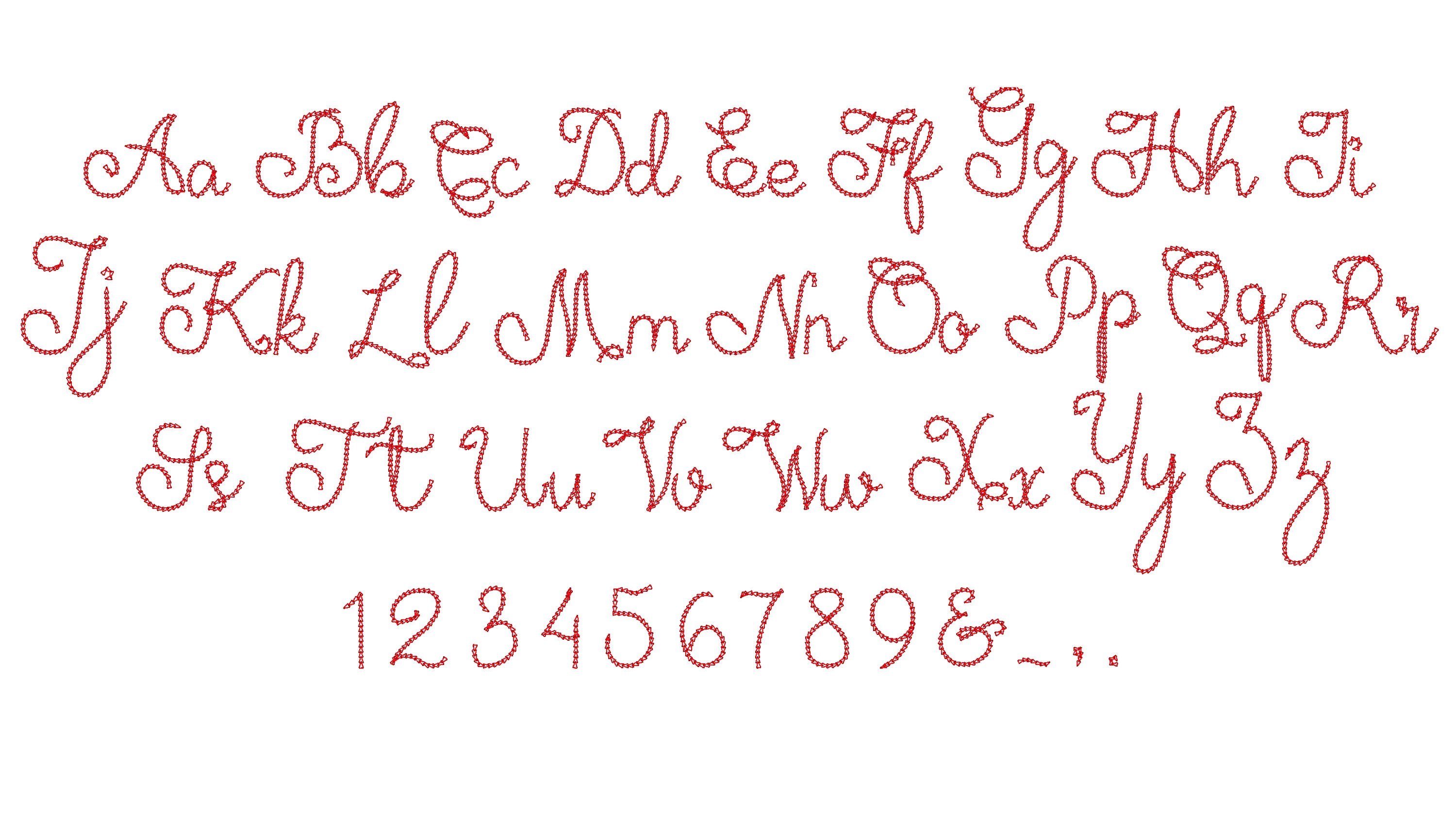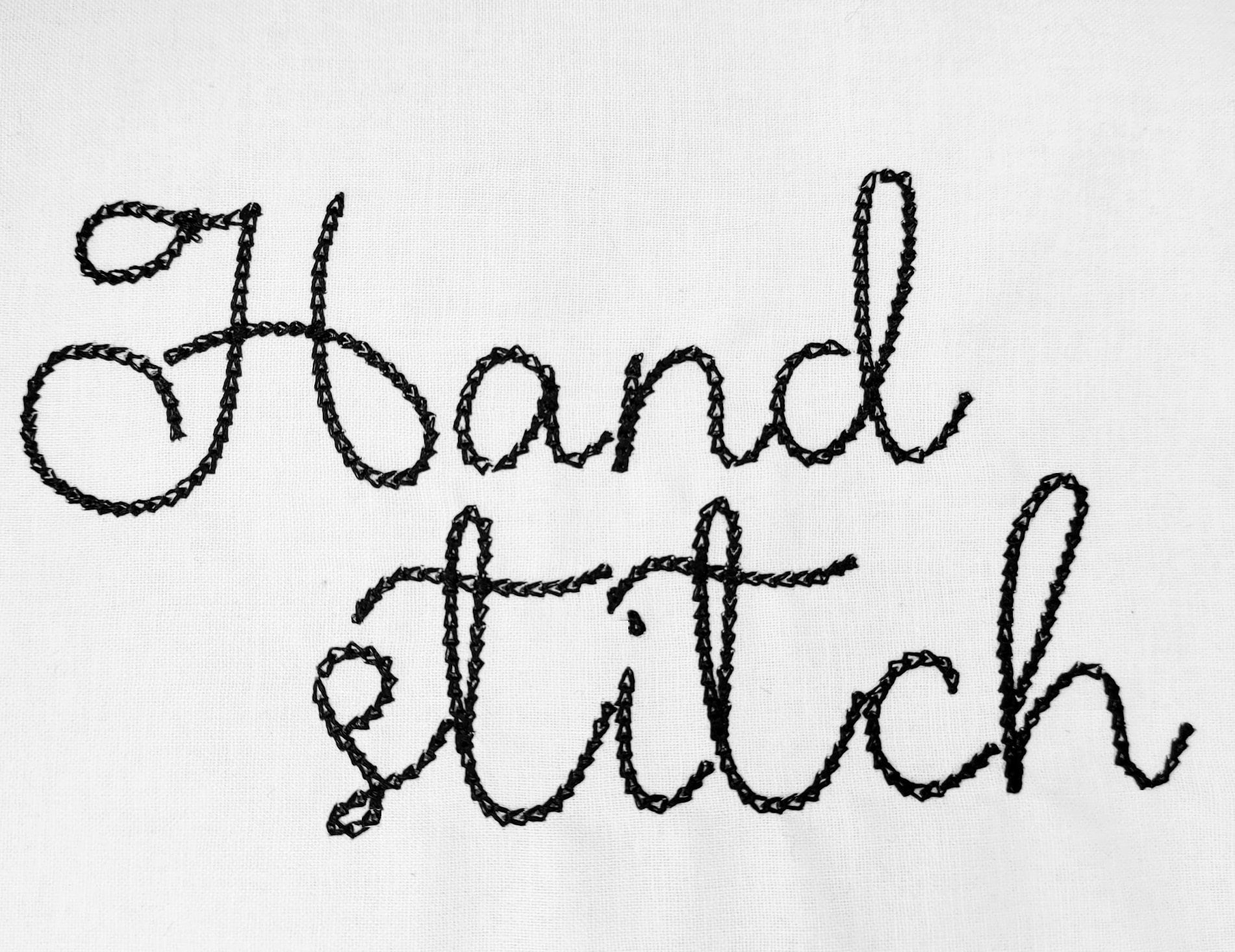
Quick light stitch Chain FONT machine embroidery designs in assorted mini sizes alphabet letters, playful kids link chain name, BX included
Entire alphabet uppercase and lowercase letters Aa-Zz, numbers 0-9, and punctuation.